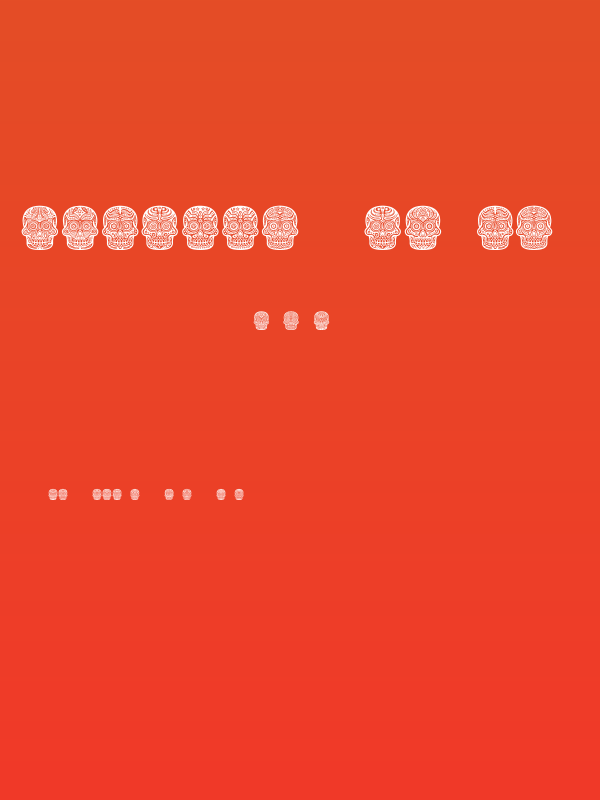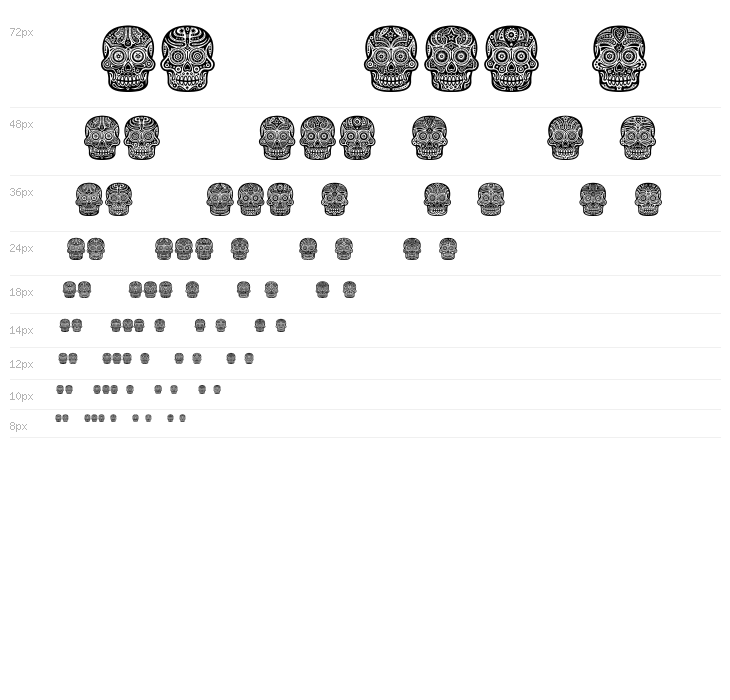
Dilemma Regular Font
Dilemma Regular Description
A highly decorative display font featuring intricately detailed skull illustrations for each character, evoking a Day of the Dead or sugar skull aesthetic. Each glyph is unique, with ornate linework and patterns filling the skull shapes.
| Overall Style | Decorative, Thematic, Artistic |
| Use Case | Logos, Headlines, Posters, Themed Graphics |
| Proposed Projects | Halloween posters, themed party invitations, event branding, album covers, festival graphics, alternative apparel design. |